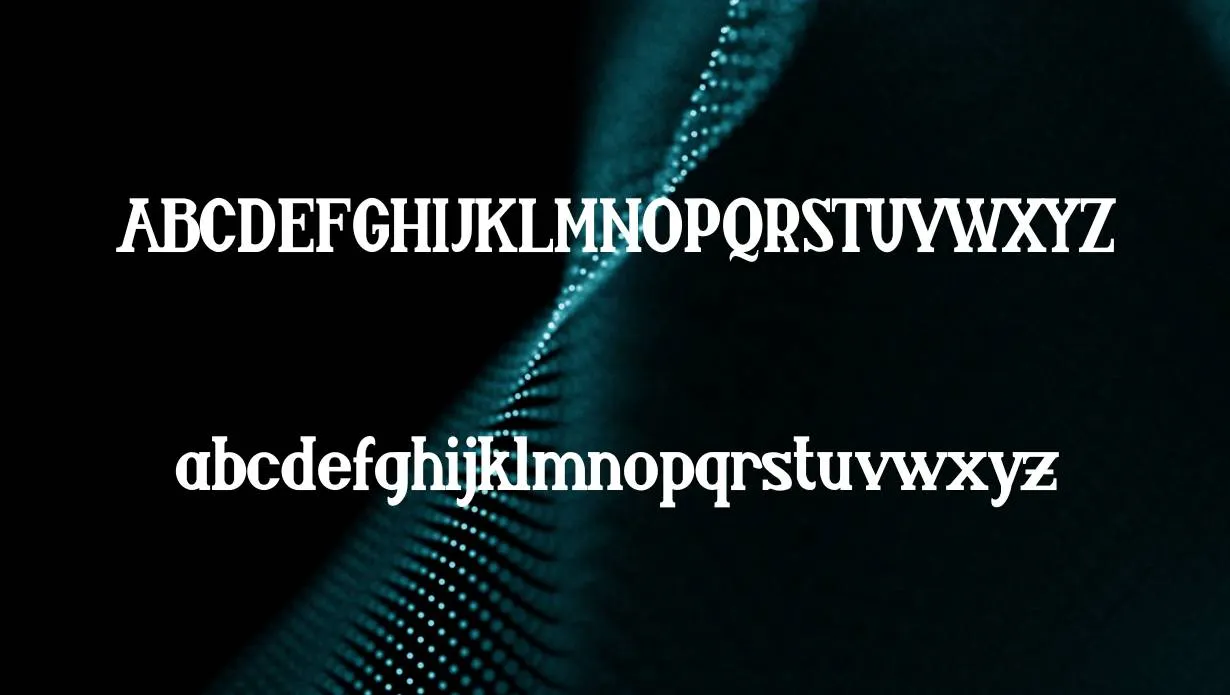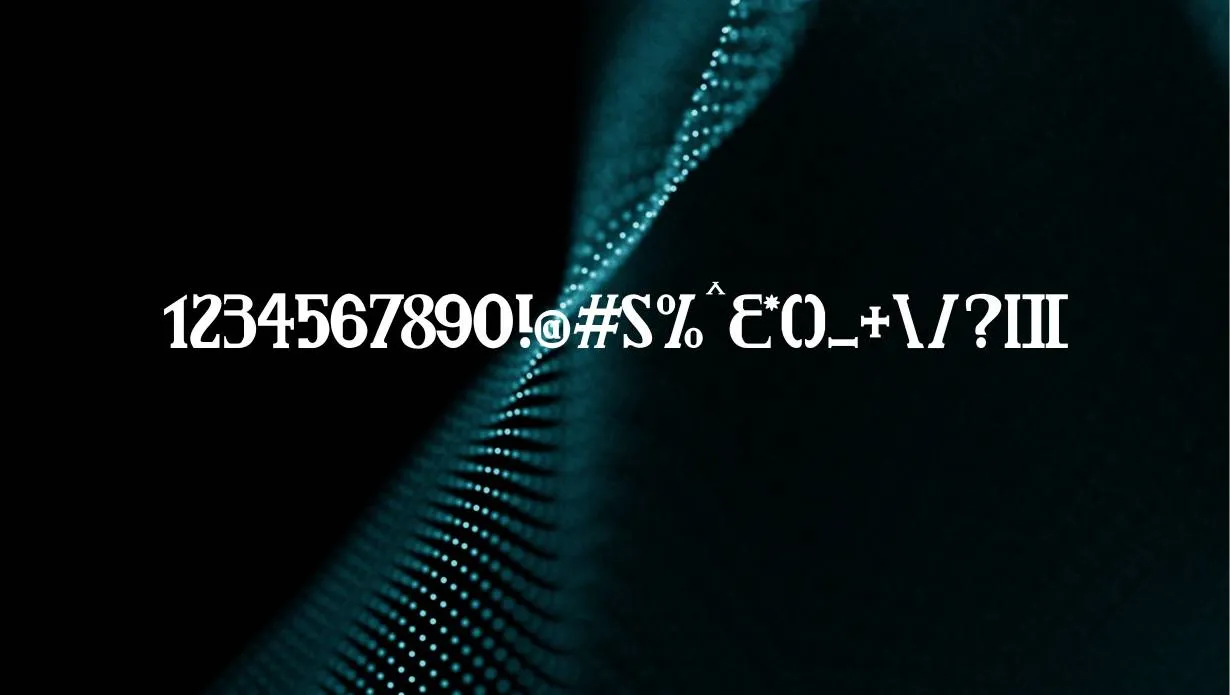
Jequitiranaboia Font is a fancy font style that was created by Brazilian designer Adilson Gonzales de Oliveira Junior in 2006. This typeface was motivated by the geometric shapes of the Brazilian flag.